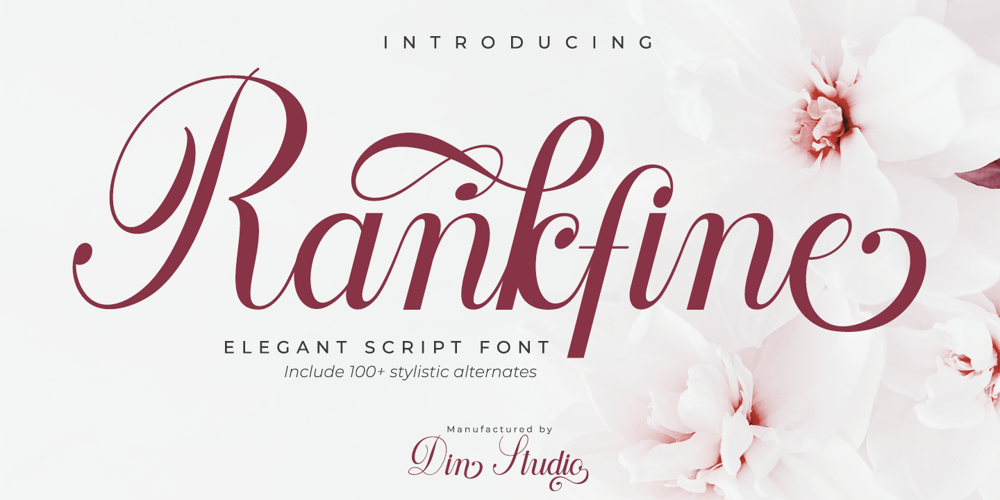
Rankfine Font Family was designed by Donis Miftahudin and published by Din Studio. Rankfine contains 1 styles and family package options. Rankfine is a elegant calligraphy with natural and handwritten style. It brings a modern and attractive typeface. Made for any professional project branding. It is the best for logos, branding, wedding and quotes.Features: Stylistic Set Beautiful Ligatures Multilingual Support PUA Encoded Numerals and Punctuation Thank you for downloading premium fonts from Din Studio